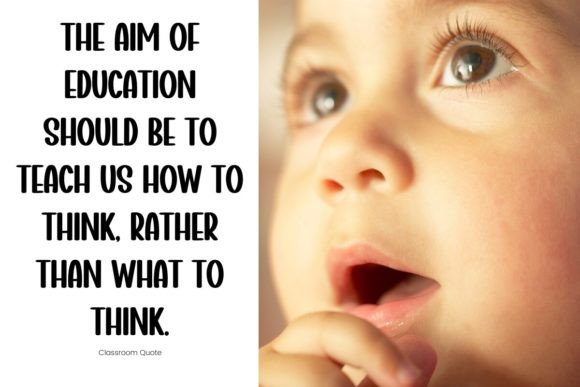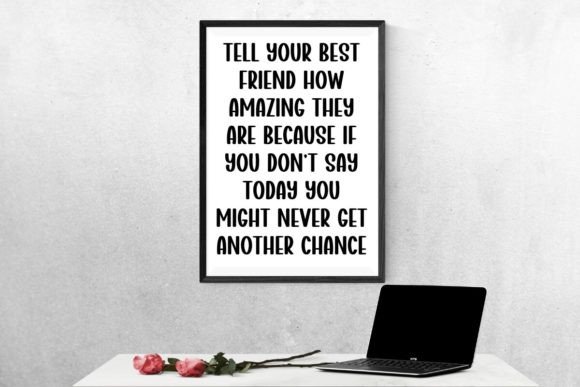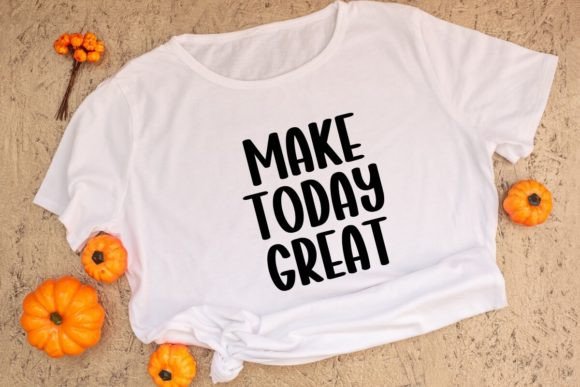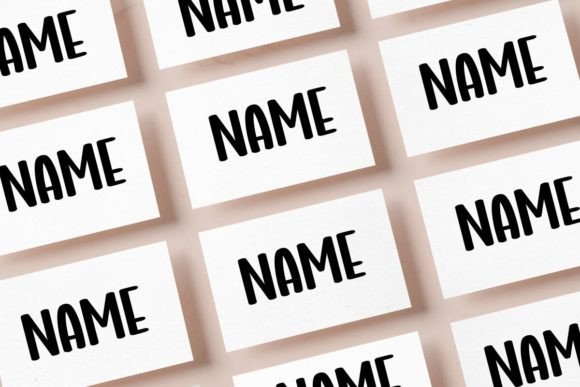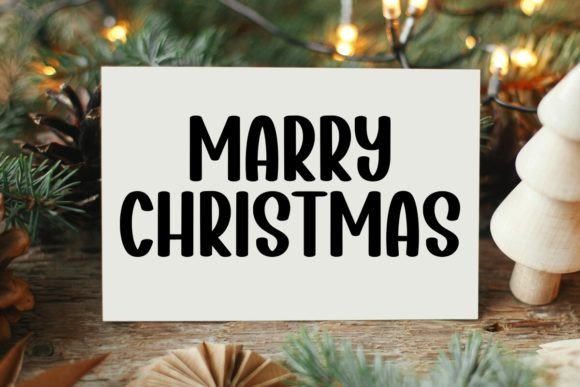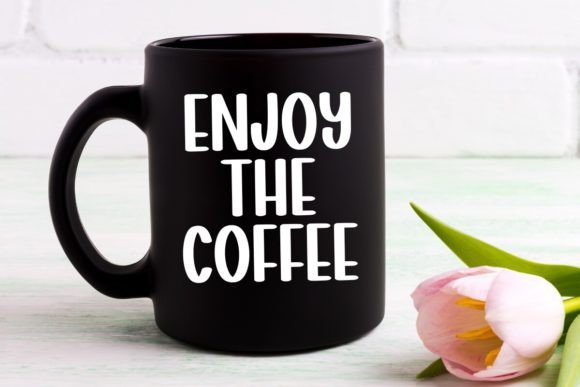
Introduction to Pizza Homemade Font
Pizza Homemade a modern and friendly sans-serif font, is a delightful blend of whimsy and clarity.
Its playful curves and rounded edges bring a sense of warmth to any design Perfect for childrenโs books, invitations, and branding, Pizza Homemade radiates a sweet charm that captures attention with its inviting personality.
Key Features of Pizza Homemade Font